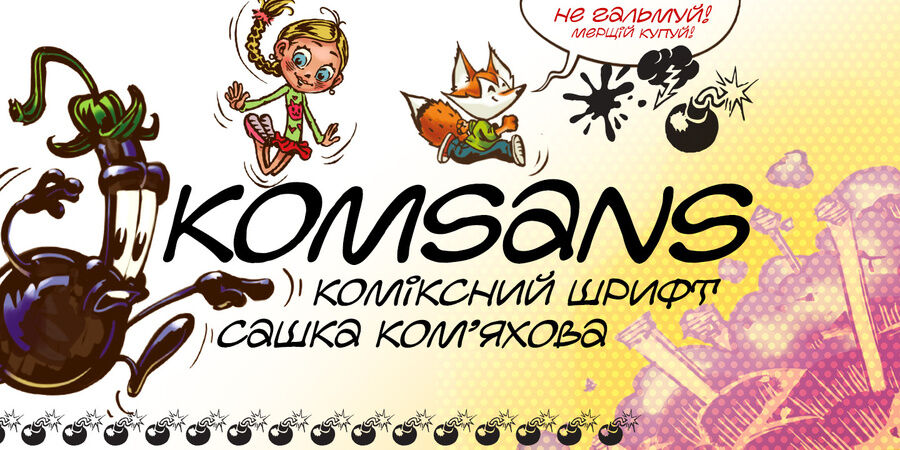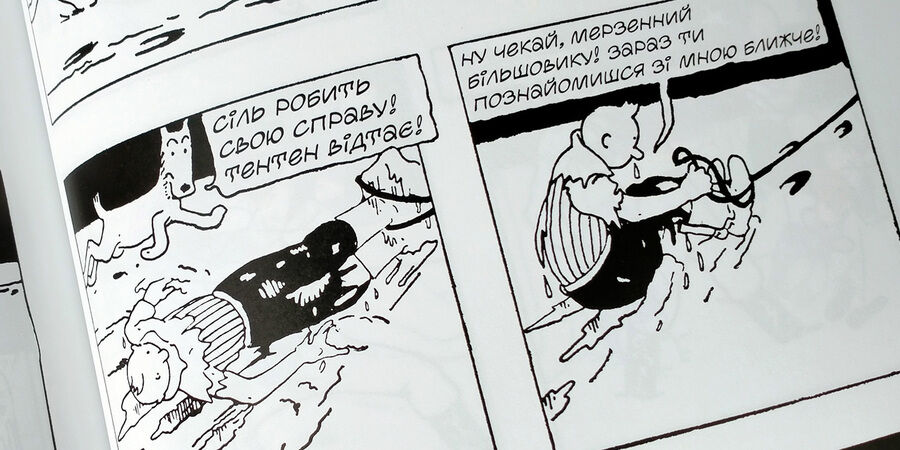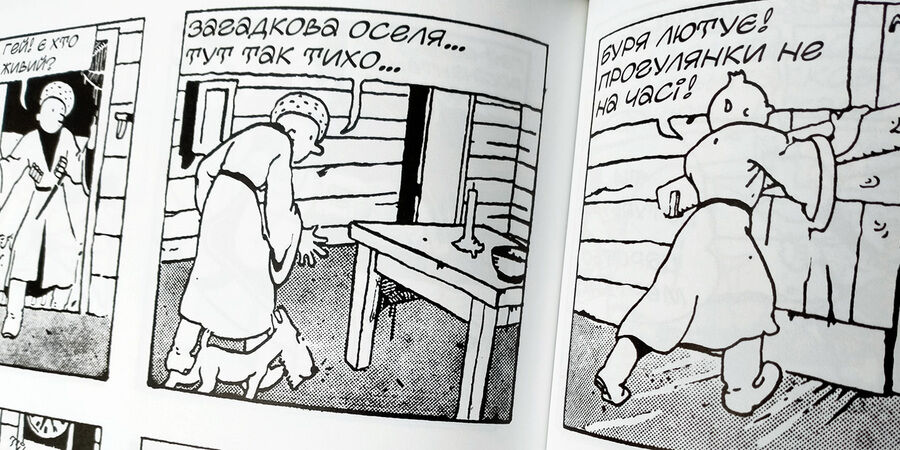
Logo font pair with Akoyster Normal (1 of 1)About KomSansHandwritten unicase font for hand-drawn stories in classic comics proportions based on the author's handwriting. KomSans has a fun and playful character, well suited for adventure, humorous and children's genres of cartoons. The font was designed by Sashko Komyakhov in 2018.